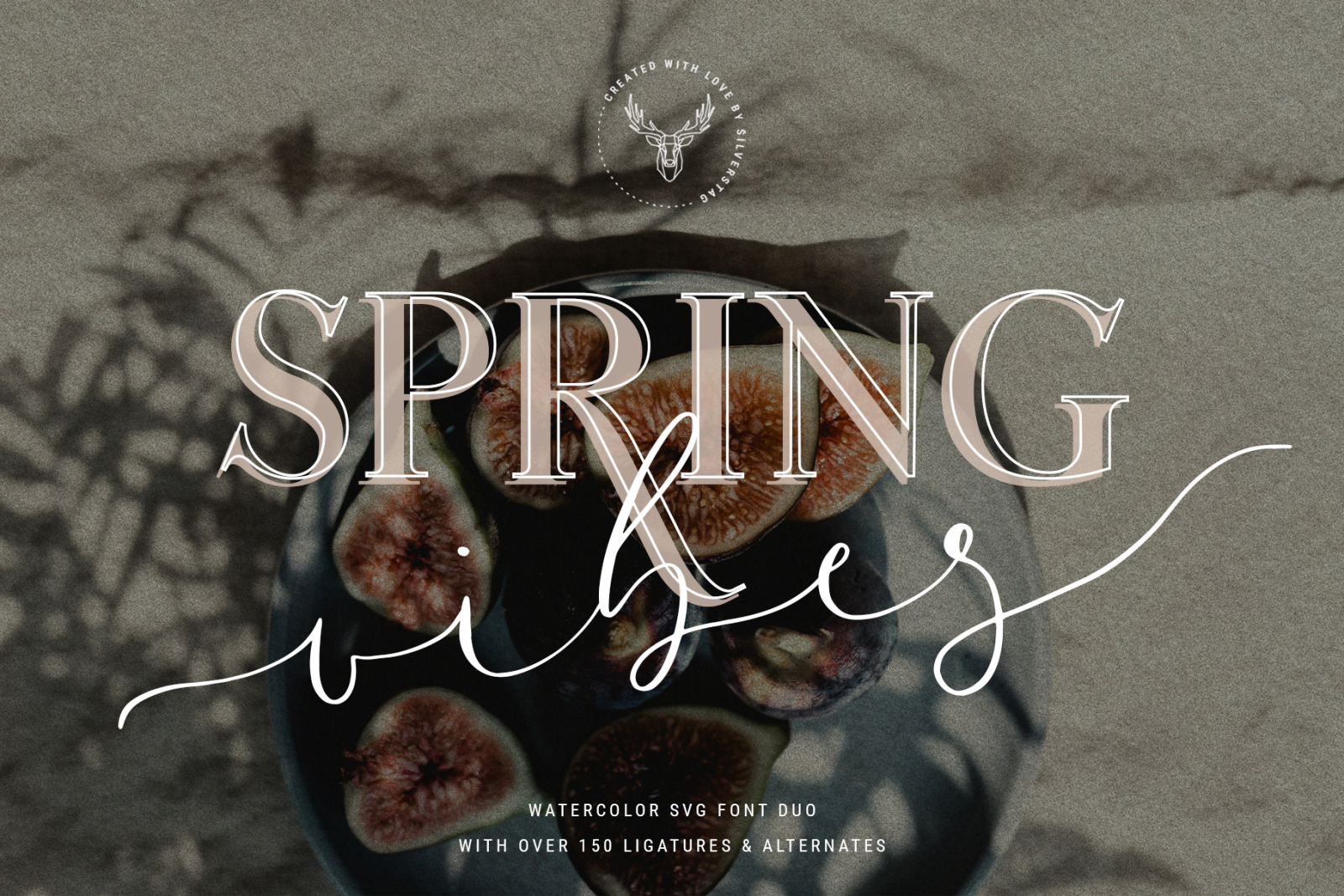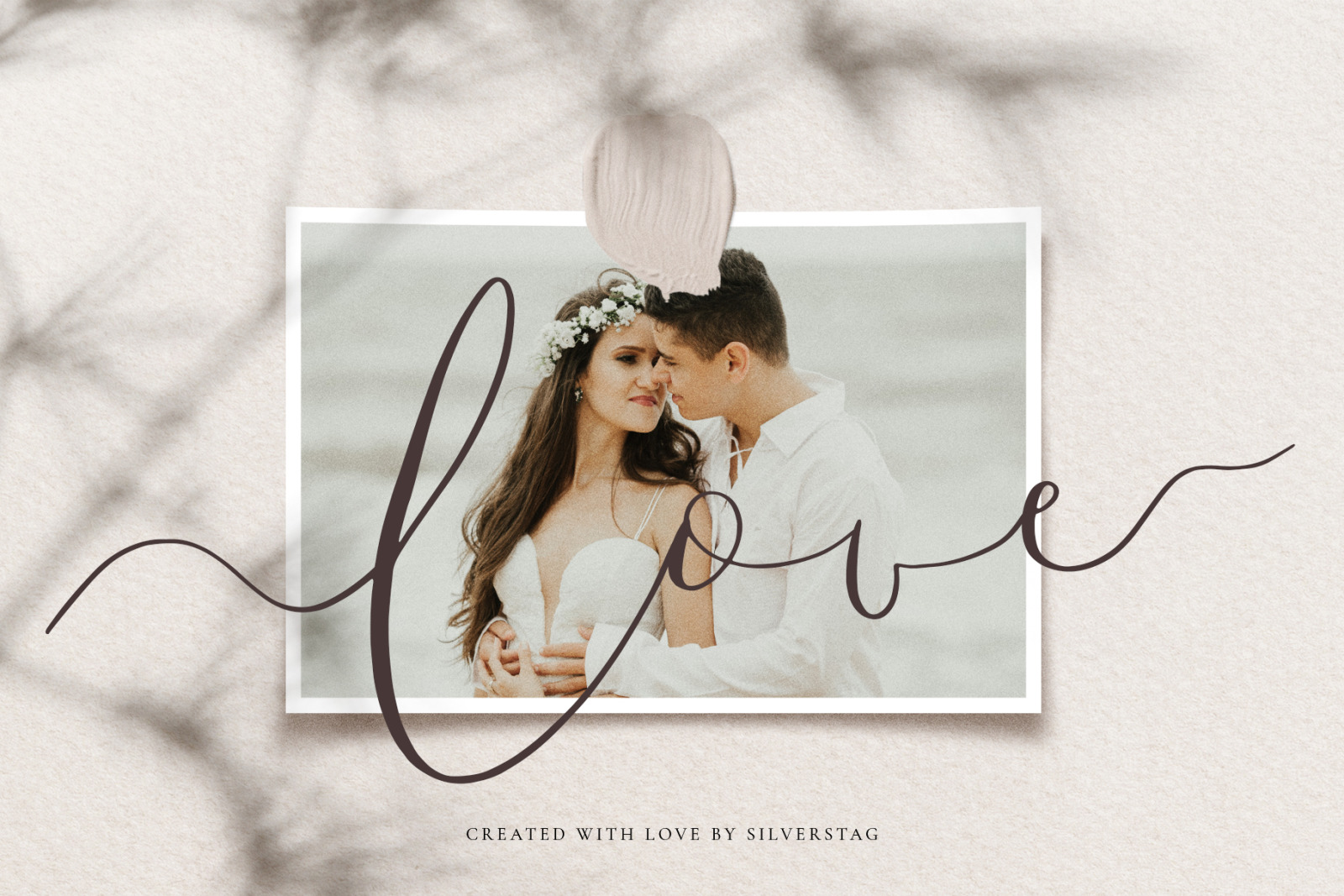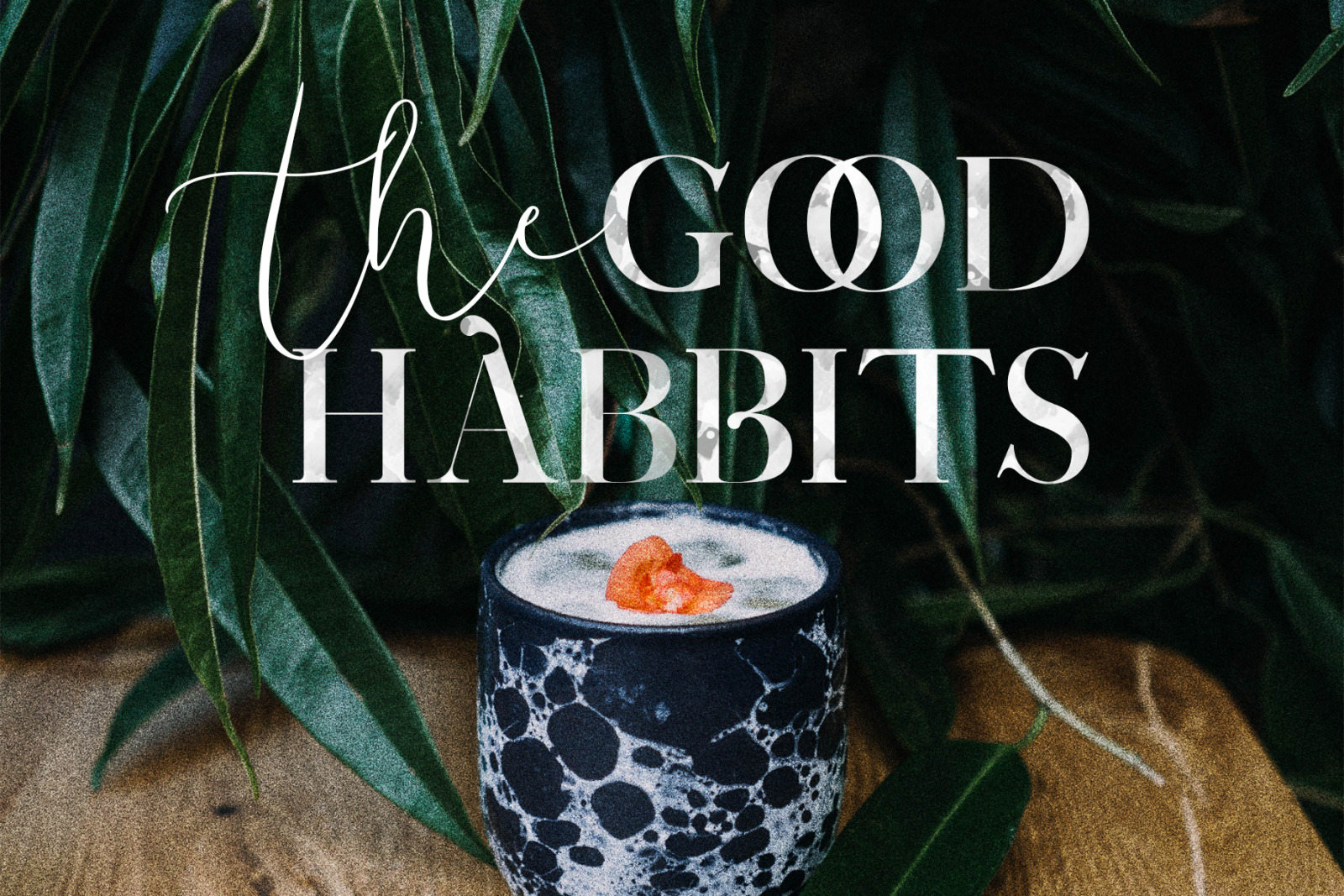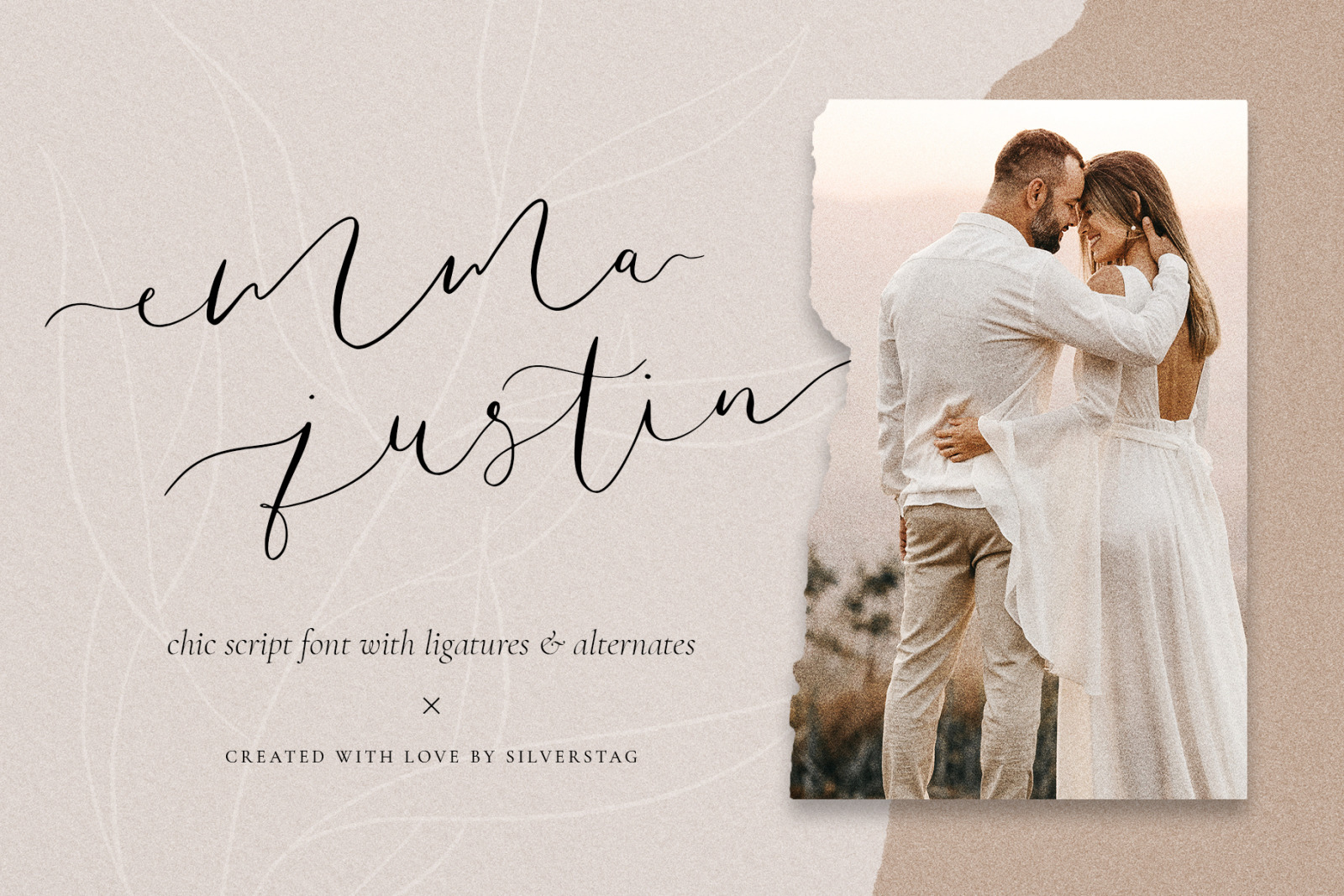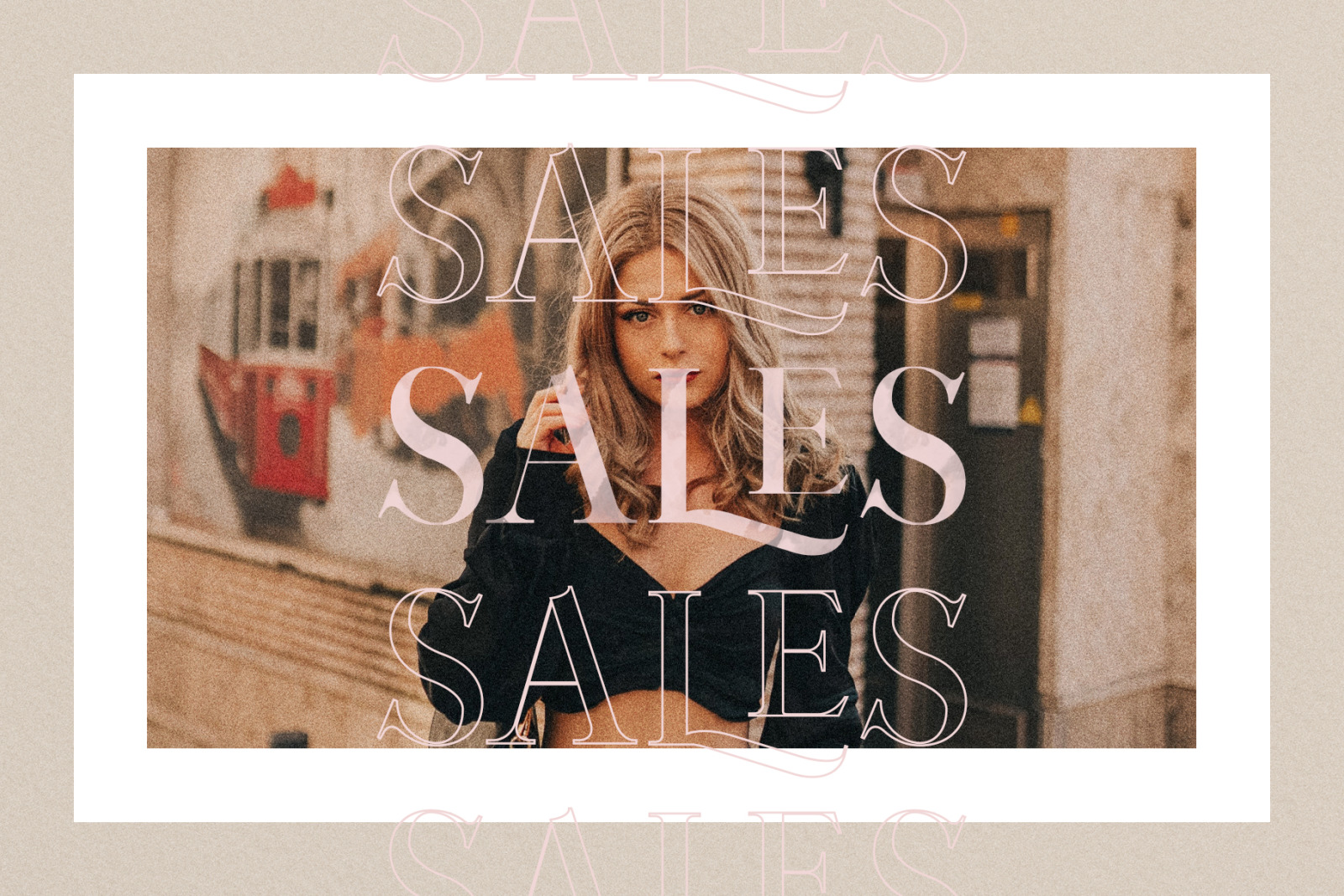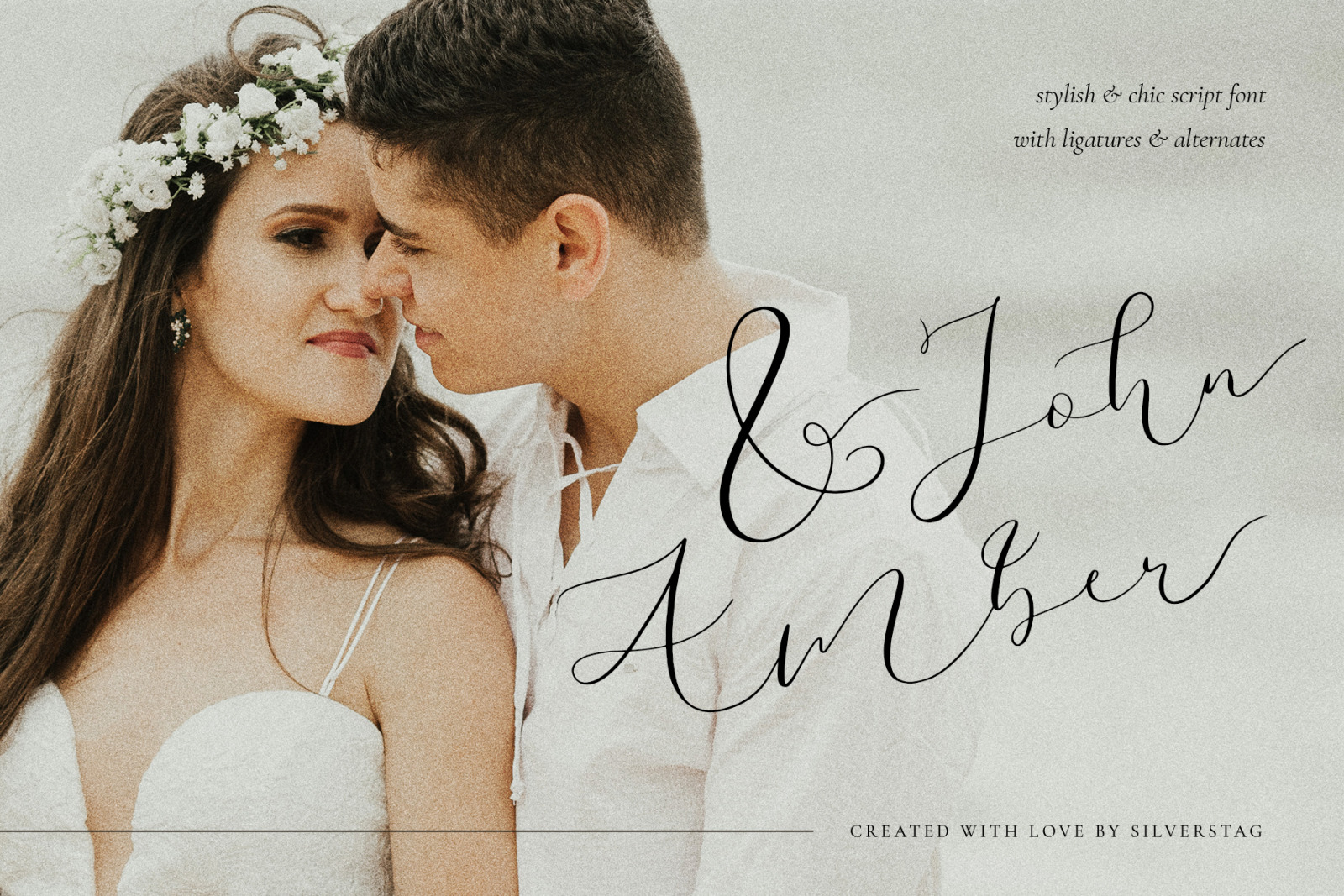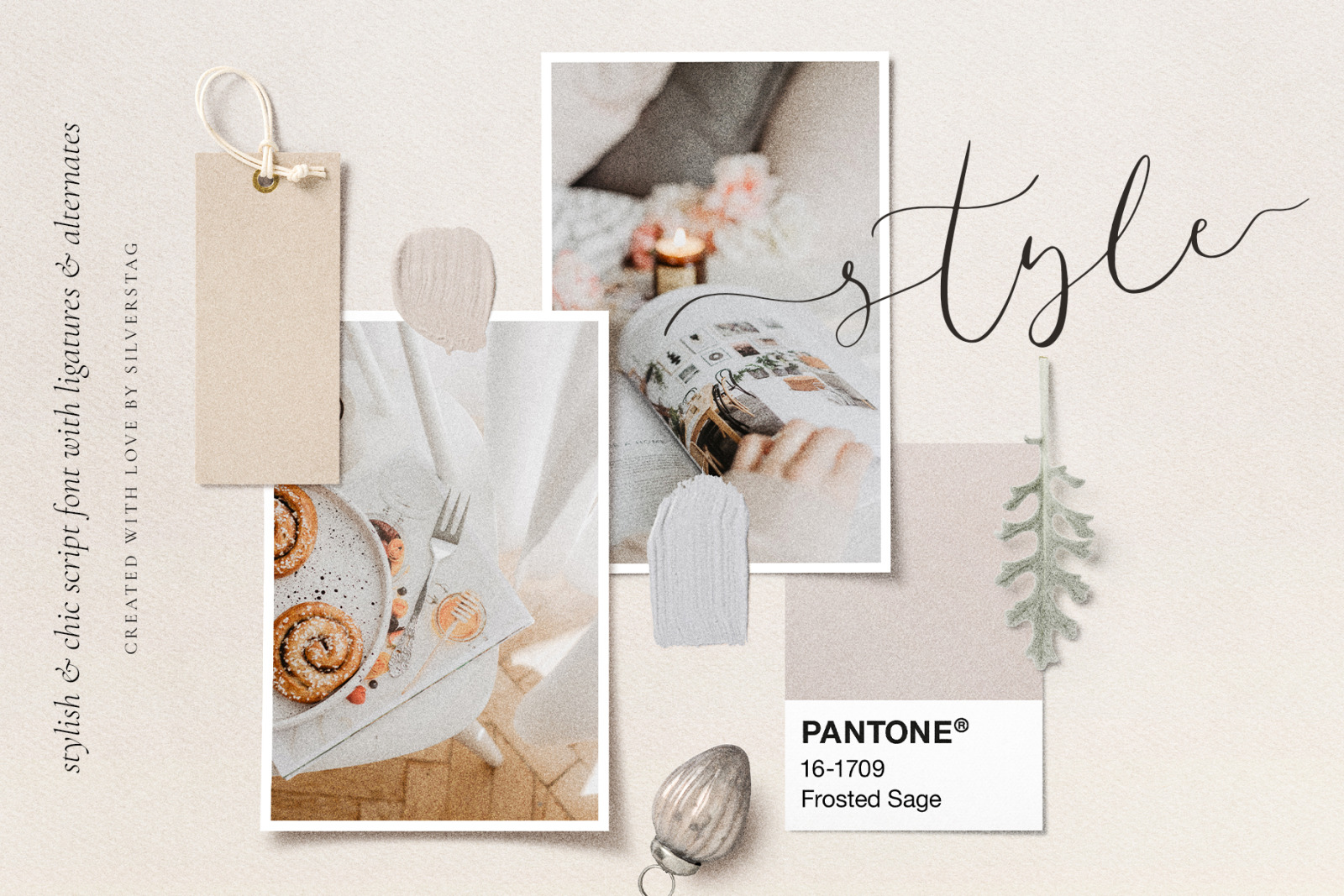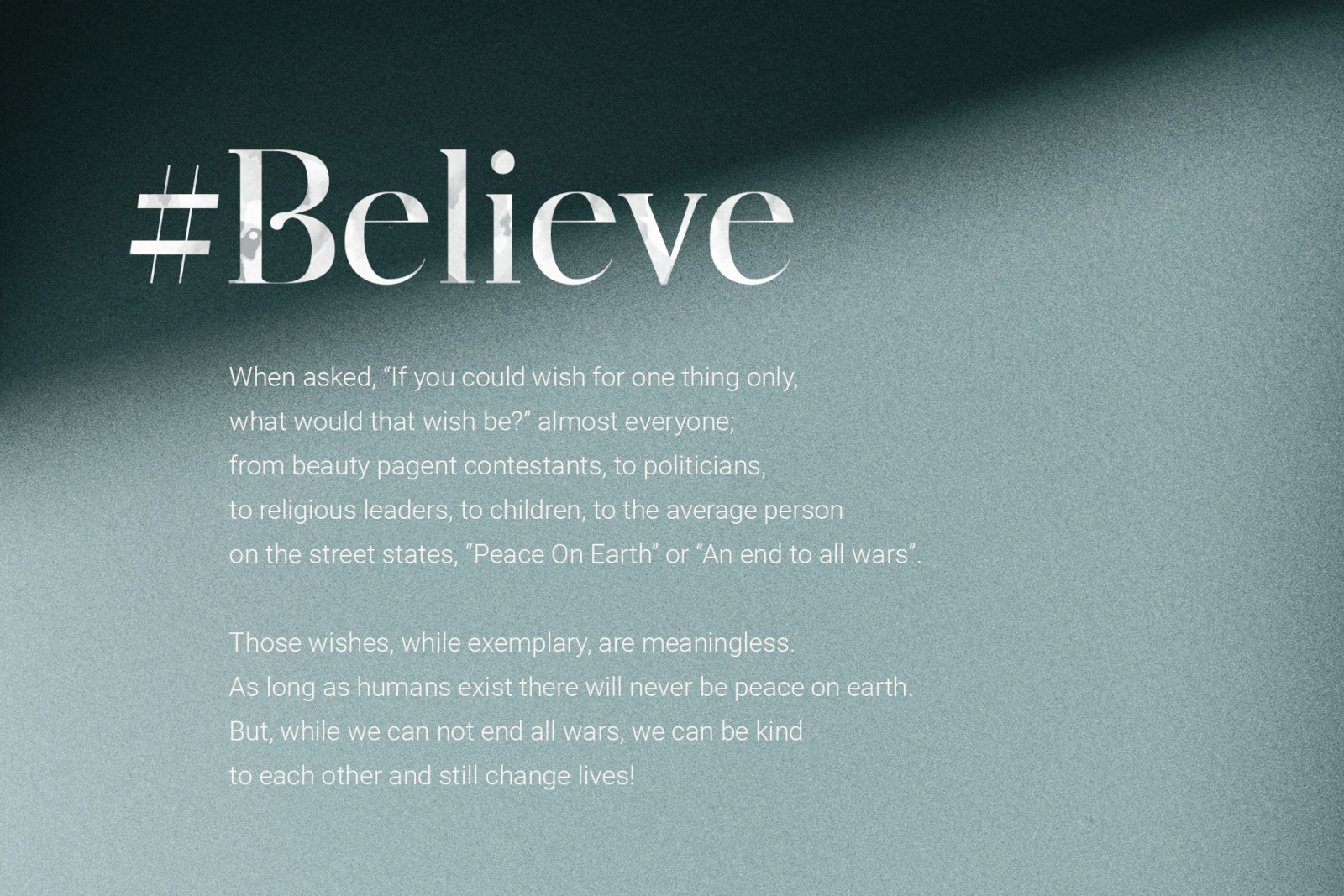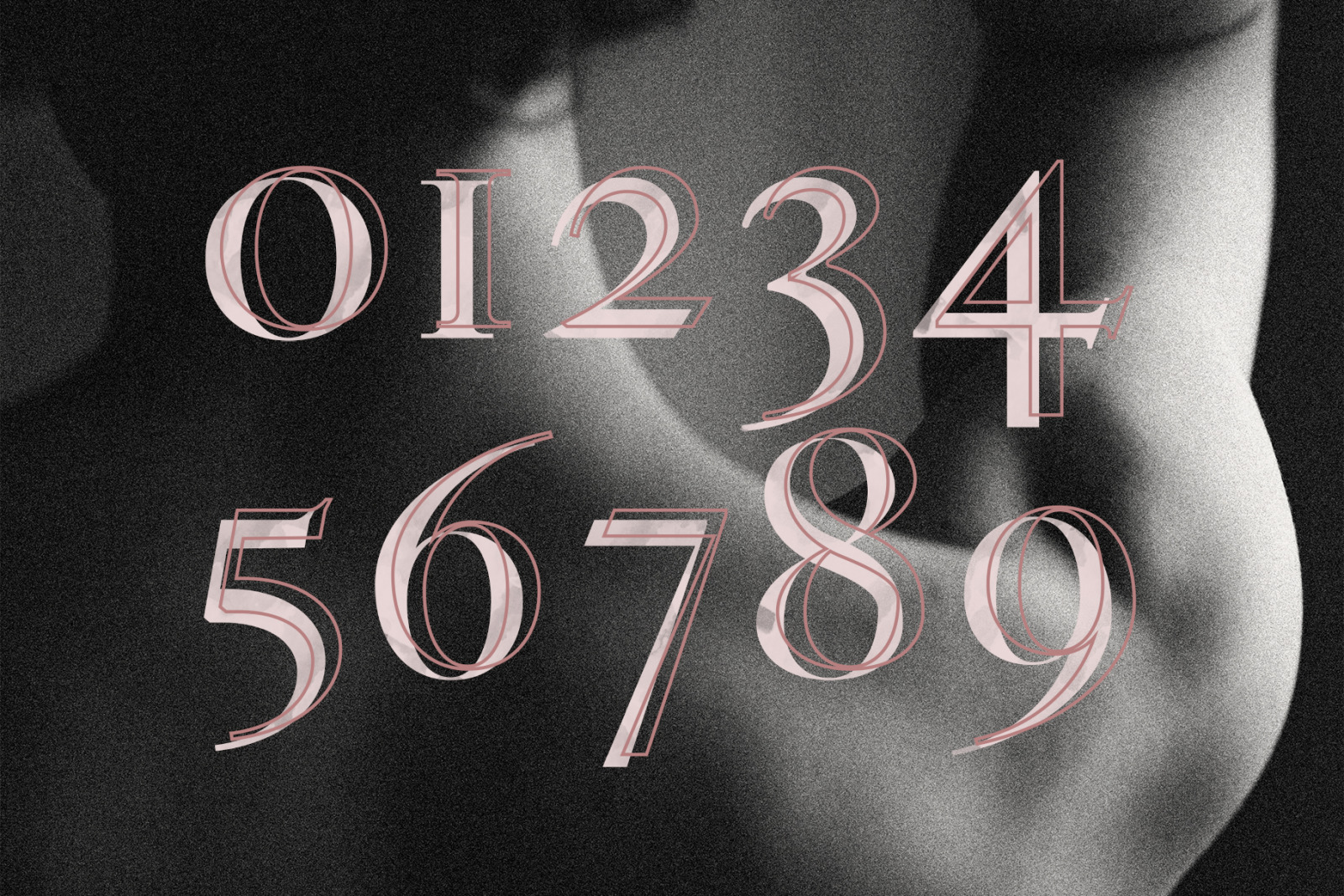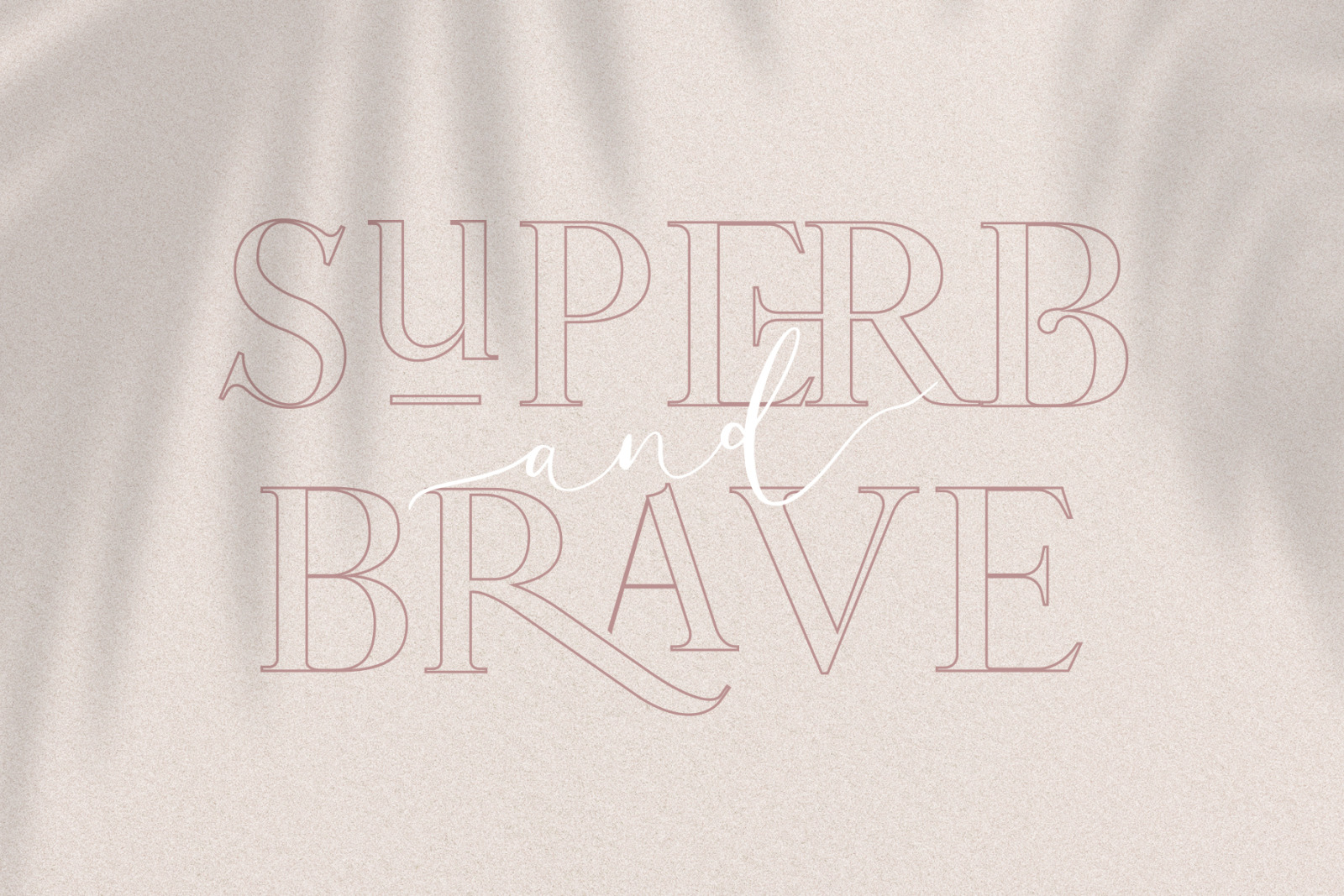
Coral Lovers SVG Watercolor Font Duo
Last week I finished a beautiful script font, Amelie, that was inspired by French art, beauty, Paris, Montmartre & of course stunningly beautiful French women. Today, I am paring that font with a brand new SVG Watercolor serif that comes in three different versions. The main one is, of course, the watercolor SVG font that has a true hand-drawn watercolor effect, but I have also included an outlined version for more modern designs and clearly a solid version.
I made a Coral Lovers Serif font for all of you who need a true watercolor effect on your fonts, but also work in industries where elegance and serif fonts are a must. I have included a lot of features and elements; ligatures, alternate letters, regular version I have also included all letters of the watercolor version in one Photoshop file. Check out all the screenshots above to see what you'll get with this amazing font!
Amelie script font is perfect for all your branding projects, Instagram post, and story templates, mood boards, wedding invitations and all other projects that you might have this year. Each letter is hand-drawn and customized so whatever you use it for it will have that true signature style. Don't forget to use alternates and turn on ligatures for a perfect handwritten look. I am really proud of how everything ended up so, please check out the screenshots above and let me know if you have any additional questions.
Coral Lovers SVG Font Duo actually includes 4 fonts:
CoralLoversOutline.otf - The outlined version that comes with all alternates & ligatures like the Watercolor version, but also supports all apps and software.
CoralLovers.otf - The fallback normal black font that can be used in all apps and software
AmelieSignature.otf - The fallback normal black font that can be seen on the last mockup
Amelie Signature font also comes with additional 2 sets of lowercase letters with swashes at the beginning and at the end
Over 150 Ligatures & Alternate letters for all fonts